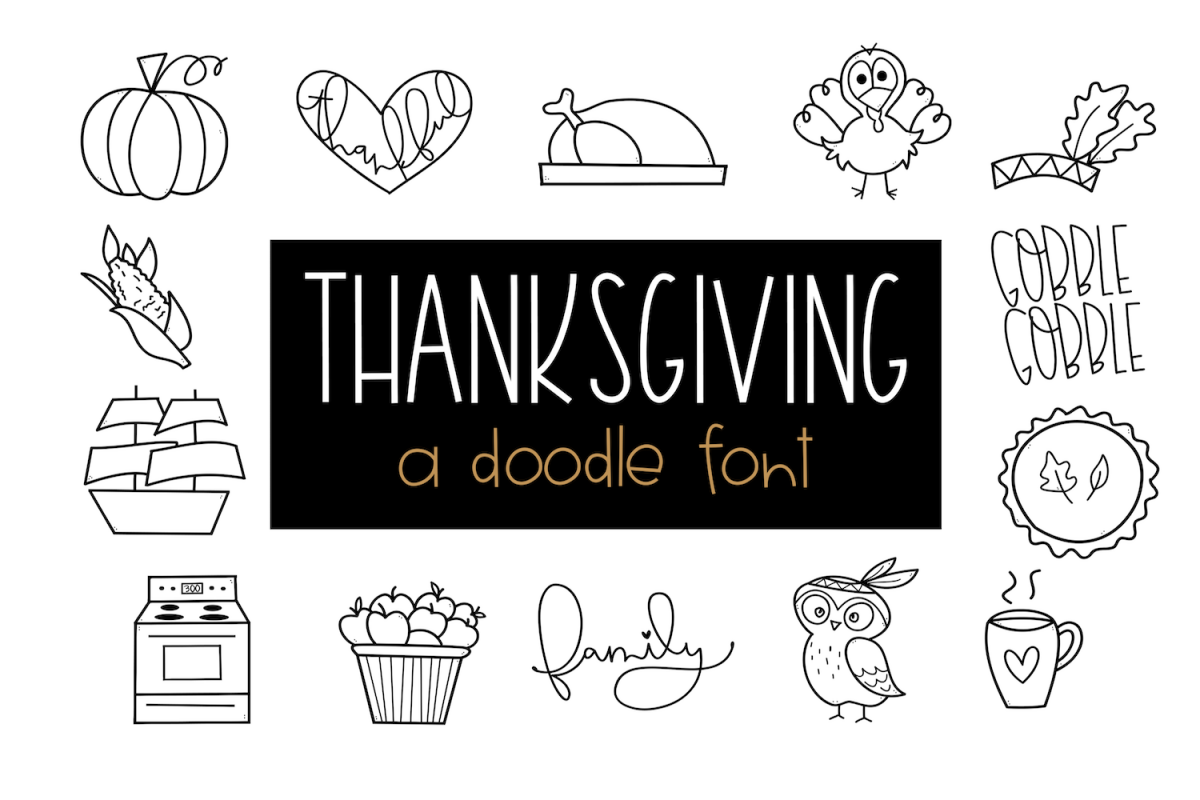
Gobble Gobble - A Thanksgiving / Fall Doodles Font
GobbleGobble
Gobble Gobble is a doodle (dingbat) font.
It includes 52 hand-drawn, Thanksgiving doodles.
Instead of a letter showing up, a small doodle will!
You can resize the doodle, color the doodle and add text to the doodles!